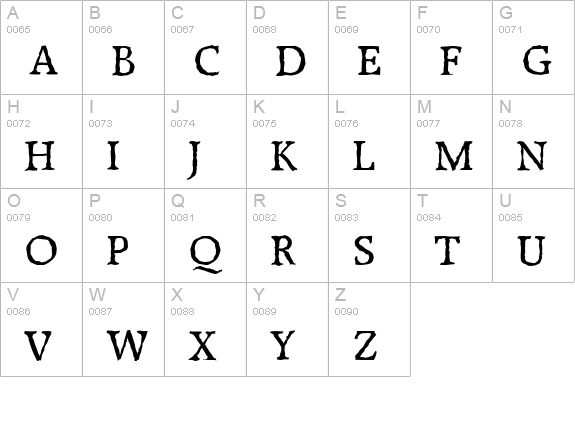
RaleighAntique-Regular Font Details
RaleighAntique-Regular is the standard, neutral variant in the RaleighAntique typeface family \xE2\x80\x94 well suited to general body text, paragraphs, and standard typographic work.